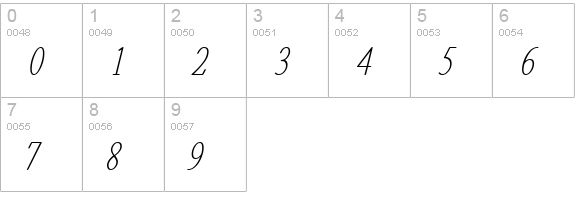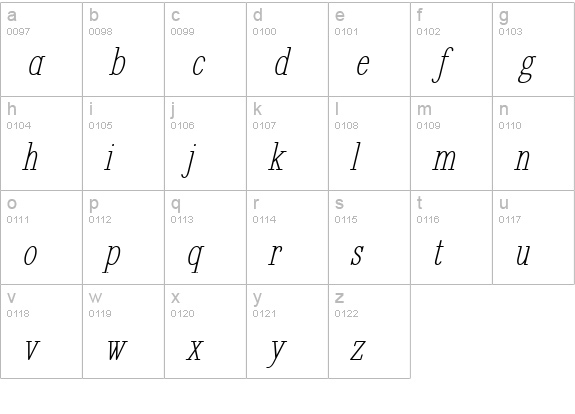
Revelation BTN Cond Oblique is a distinctive, condensed-width, italic variant in the Revelation typeface family \xE2\x80\x94 well suited to design and typography projects.
Revelation BTN Cond Oblique is a stunning font that exudes elegance and sophistication. Its unique combination of condensed letterforms and subtle oblique angles make it perfect for various design projects, including headlines, logos, and branding materials. This font's sharp and sleek design captures attention and adds a touch of modernity to any piece of work. The condensed letterforms allow for maximum impact, making your text stand out with a strong visual presence. The slight oblique angle adds a sense of dynamism and movement, giving your designs a contemporary edge. Revelation BTN Cond Oblique is versatile and adaptable, making it suitable for a wide range of applications. Whether you're designing a magazine layout, creating an eye-catching poster, or crafting a professional presentation, this font will elevate your work to the next level. What sets Revelation BTN Cond Oblique apart is not only its exceptional design but also its accessibility. This font is freely available to download at FontsMarket.com, allowing you to enhance your designs without breaking the bank. With just a few clicks, you can acquire this font and start creating captivating visuals that will leave a lasting impression. Don't miss out on the opportunity to add Revelation BTN Cond Oblique to your font collection. Its combination of elegance, versatility, and accessibility makes it a valuable asset for any designer. Unleash your creativity and take advantage of this freely available font at FontsMarket.com today.